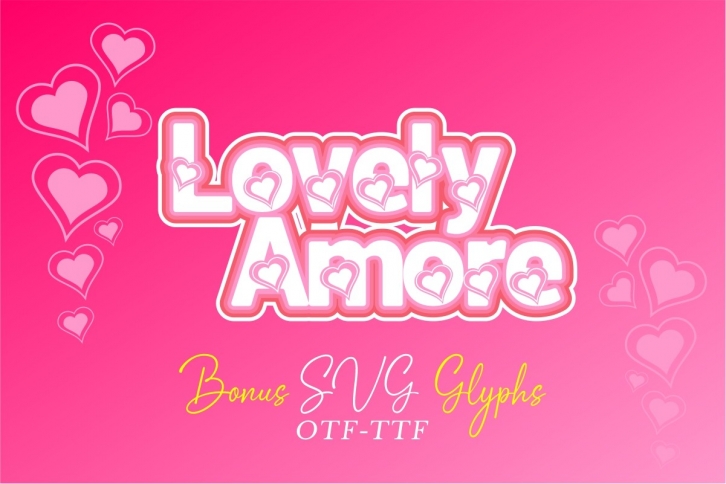
Lovely Amore is a cool, friendly and fun display font. It works great for various designs that require a romantic yet casual touch. Fall in love with its incredibly versatile style and use it to create spectacular designs!